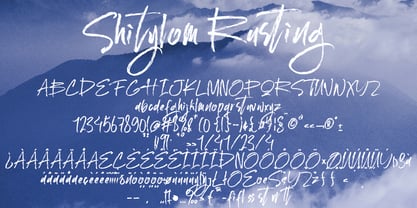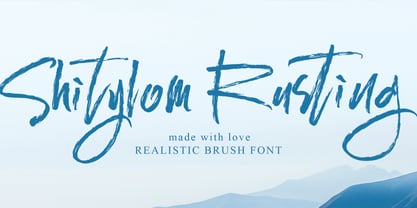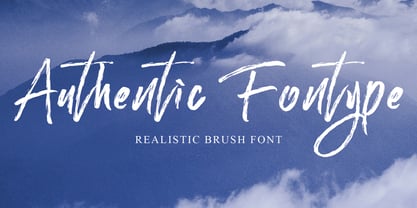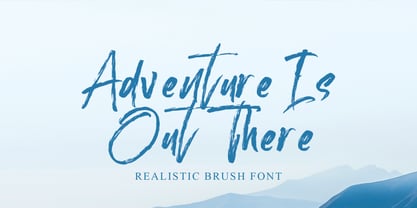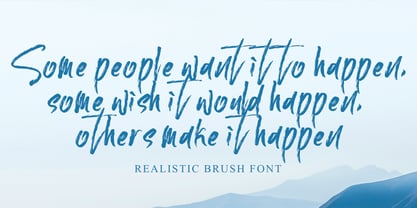
Shitylom Rustting
by Ayska
The Shitylom Rustting Font Family was designed by Dhoni Trihatmoko and published by Ayska. Shitylom Rustting contains 1 styles. More about this family
Unveiling Shitylom Rustting - a digital jewel merging contemporary allure with timeless sophistication, drawing its roots from the beloved grandeur of handcrafted scripts. Shitylom Rustting is not merely a font but an ode to artisanal excellence. Known for its graceful sweep of cultured refinement, it adds a distinctive touch to your digital creations. With its one-of-a-kind character, Shitylom Rustting breathes a unique personality into your diary musings, adds individuality to your invites, and communicates heartfelt sentiments in custom-designed greeting cards. Unearth unceasing innovation with Shitylom Rustting. Let it enhance your photo mosaics or breathe life into your handmade sketches. Watch how Shitylom Rustting transforms the mundane into extraordinary visual stories, permeating your digital voyage with a magical feel. Succumb to the mesmerizing charm of Shitylom Rustting which servers as a beacon in creating unforgettable artistic expressions. Let the invigorating power of Shitylom Rustting ignite your creative spirit, directing your artistic inklings towards a sanctuary of unrivaled digital art.
Designers: Dhoni Trihatmoko
Foundry: Ayska